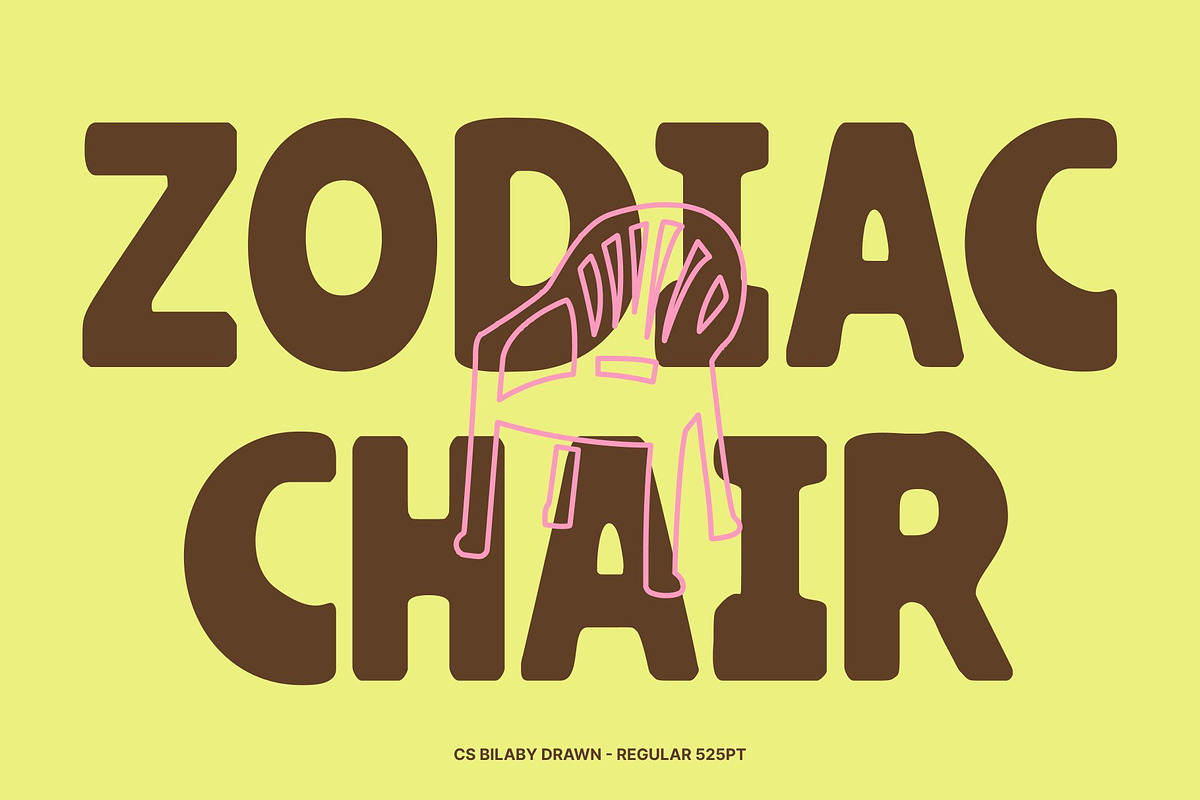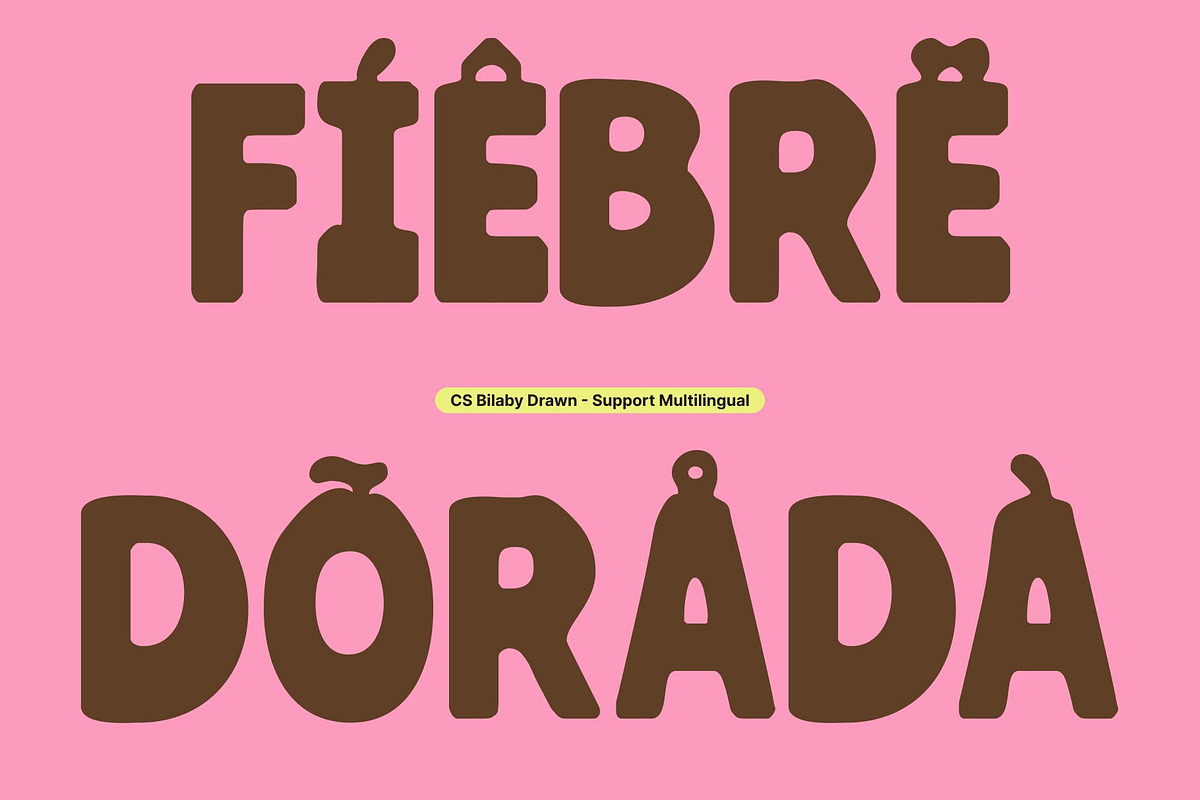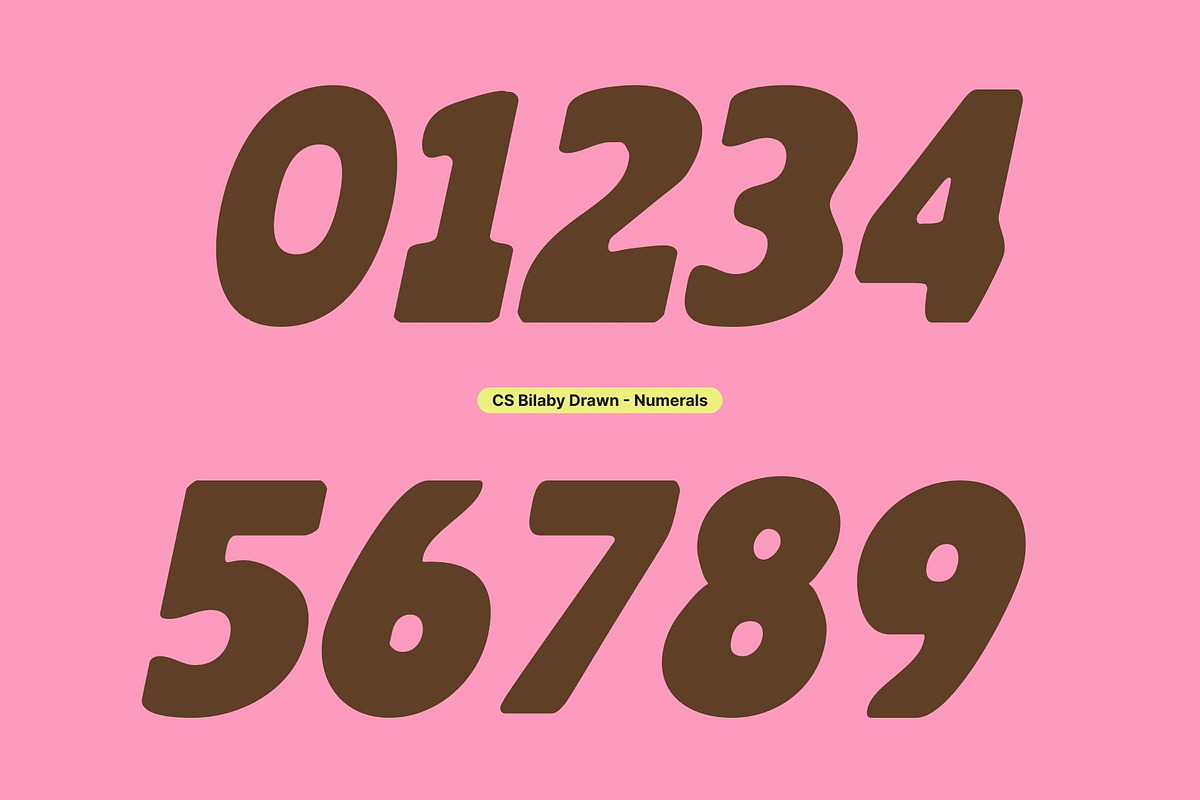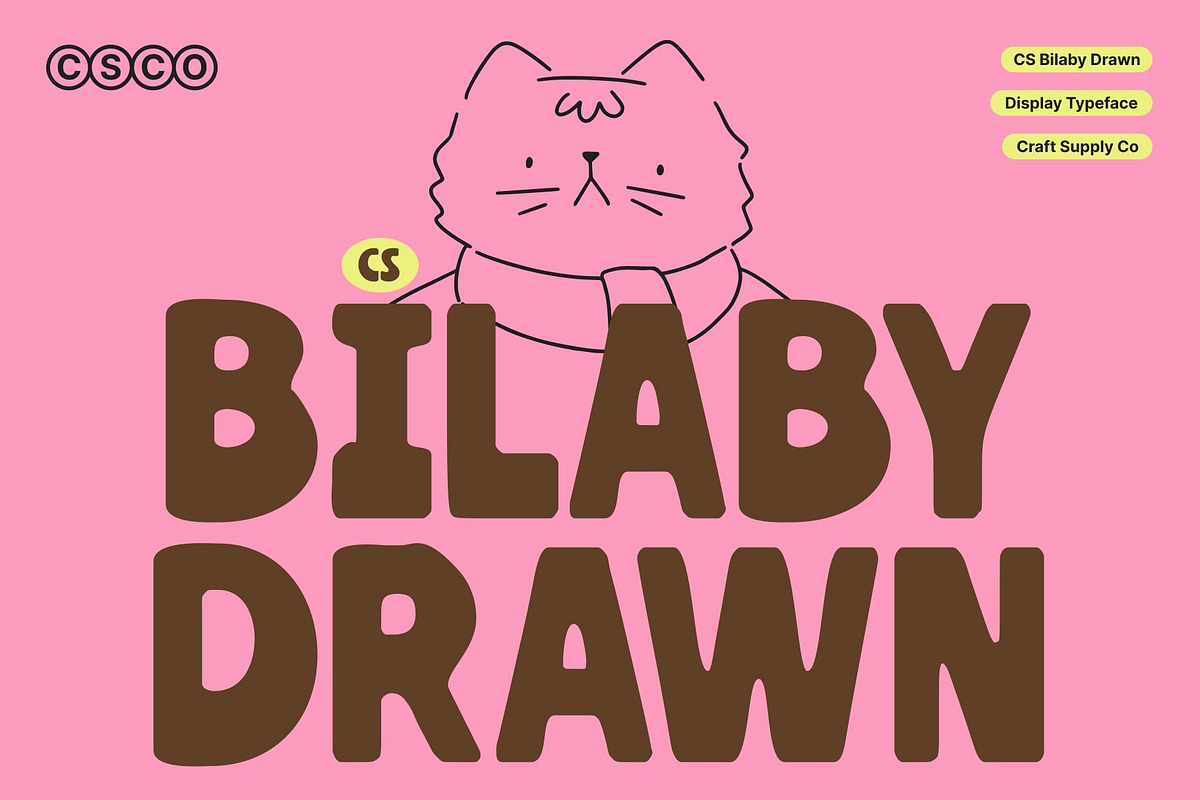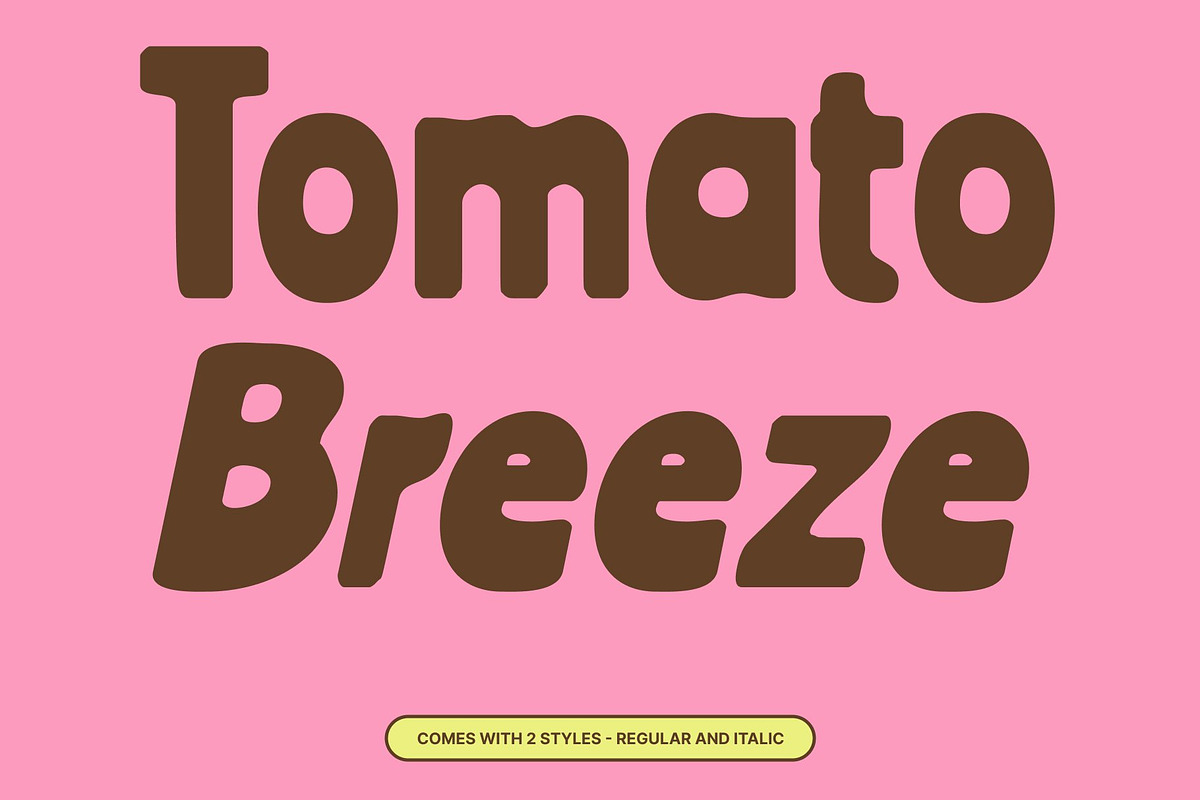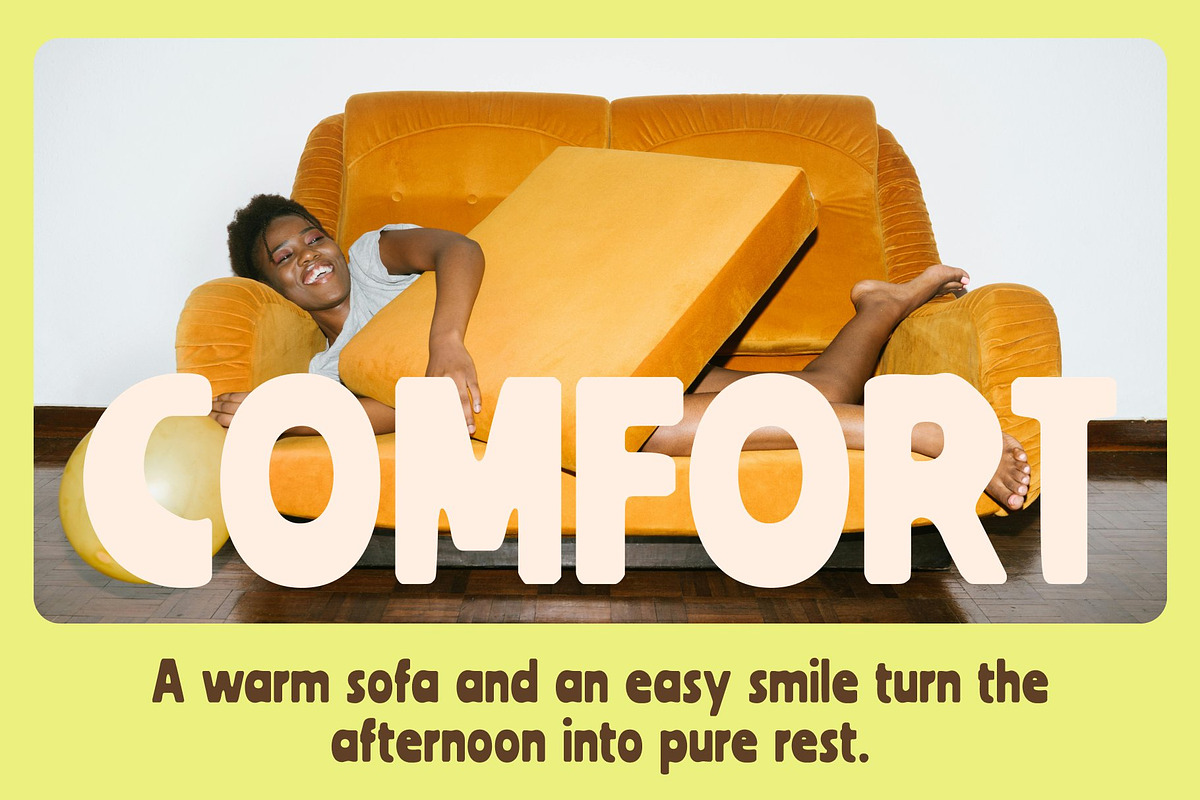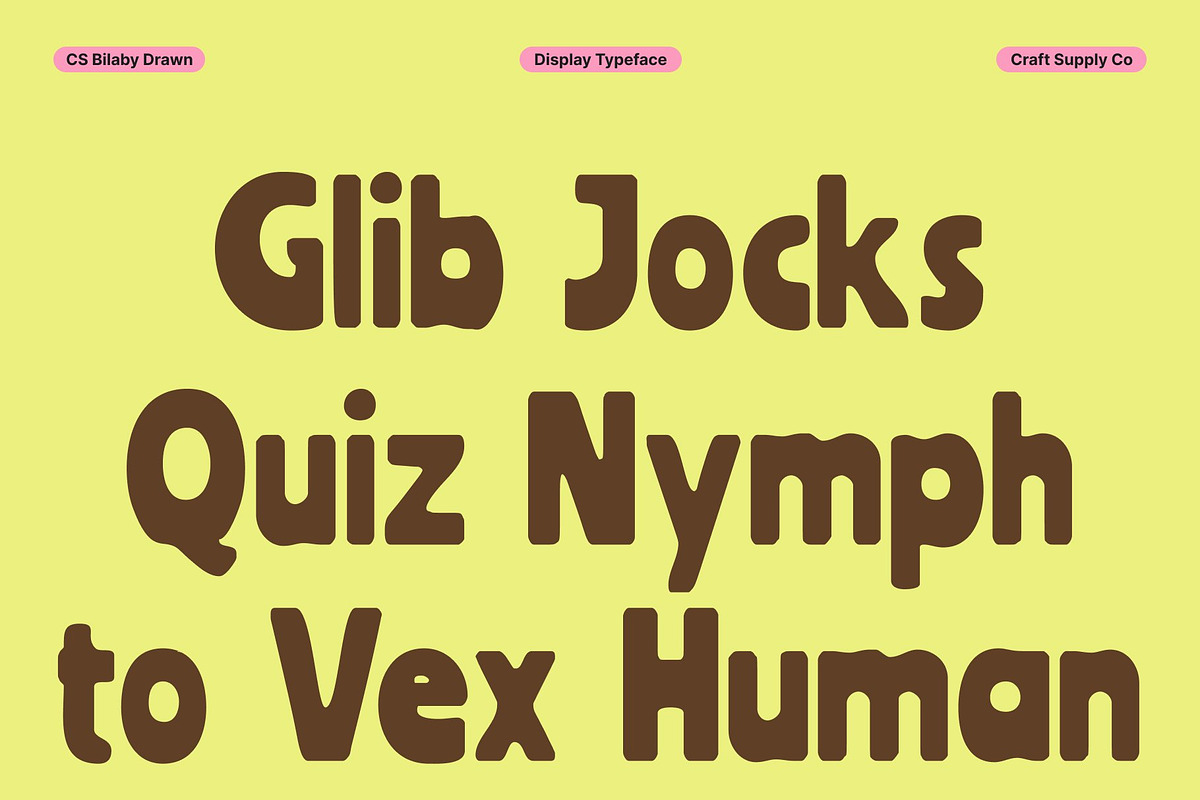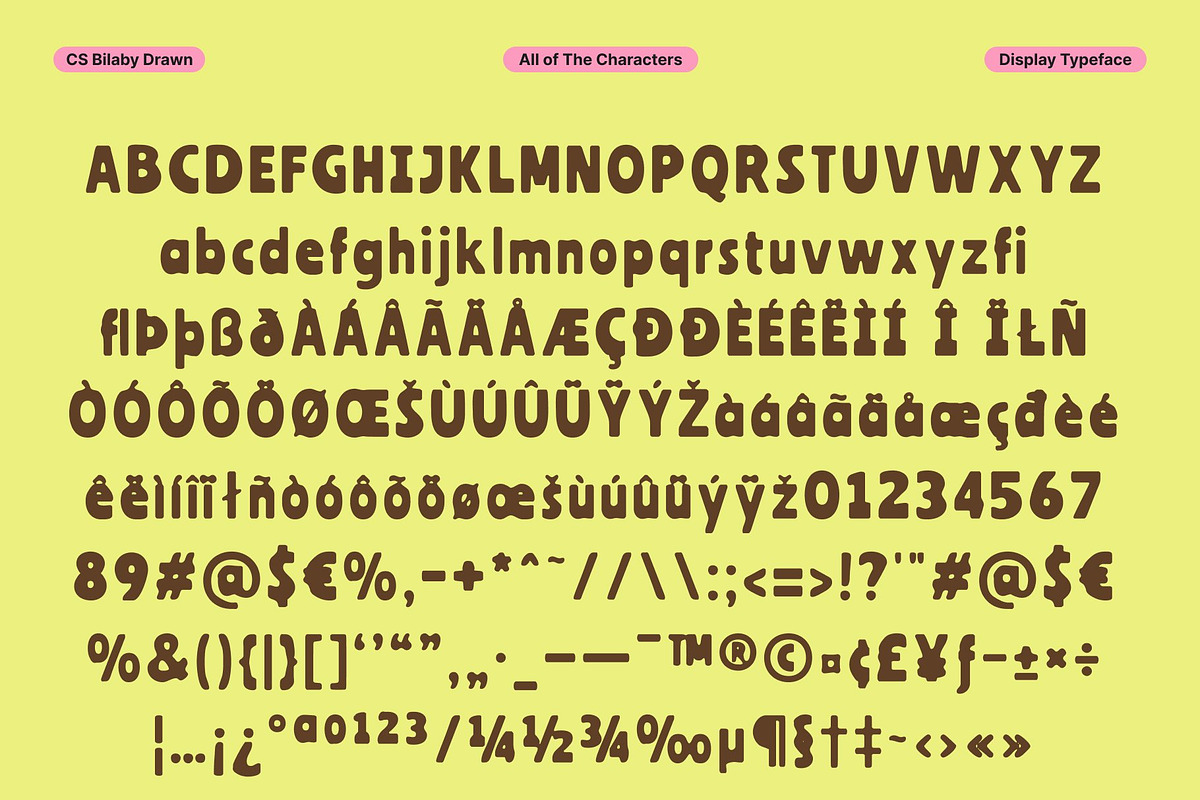
CS Bilaby Drawn
CS Bilaby Drawn – Playful Hand-Drawn Display Font with Modern Charm
Friendly Handwriting with Contemporary Style This is a modern display font that brings the warmth and personality of handwritten text into a clean, contemporary form. Its smooth, organic letterforms create an approachable, lively feel, making every design instantly inviting and full of character.
Cheerful and Expressive Personality With playful curves and subtly quirky shapes, this font radiates energy and friendliness. The hand-drawn texture adds authenticity and movement, giving the font a lively, engaging presence that feels both joyful and modern.
Versatile Balance of Fun and Clarity While full of personality, this font maintains readability and structure, making it ideal for projects that need a balance of creativity and professionalism. It works beautifully across personal, commercial, and editorial designs without compromising clarity.
Perfect for Youthful, Creative, and Stylish Projects From branding and posters to packaging and social media graphics, this font adds a fresh, energetic, and characterful touch to any layout. It’s the perfect choice for designers seeking a hand-drawn display font that feels playful, modern, and full of personality.